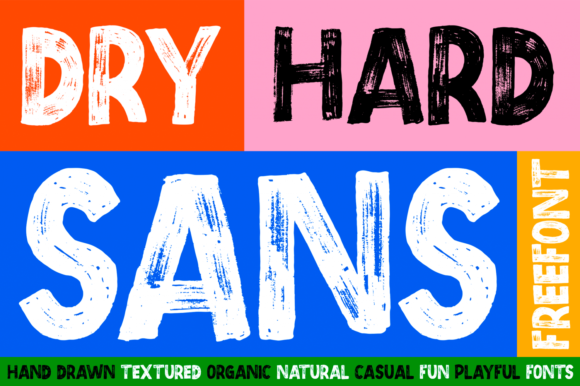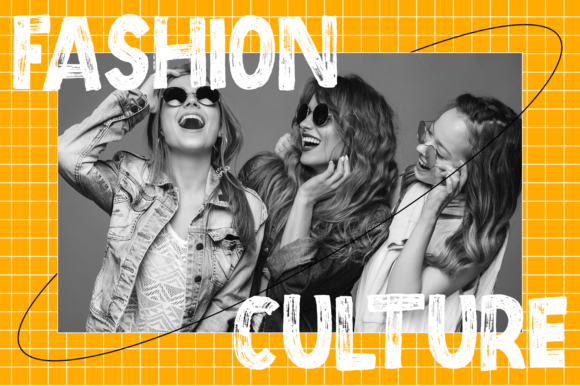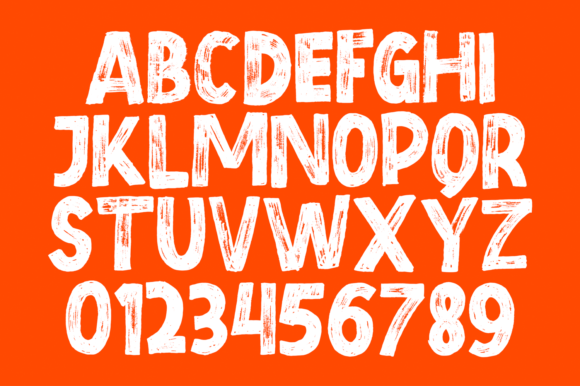
Dry Hard Sans Font
Dry Hard Sans is a cool, thick lettered and brushed display font. Add it confidently to your projects, and you will love the results. The only limit is your imagination!